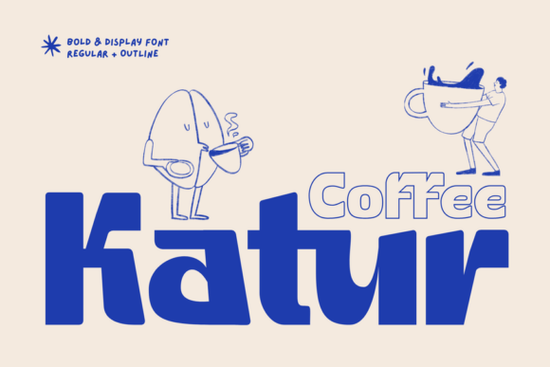
If you run a coffee shop, design food packaging, or create urban-inspired branding, finding the right typeface can make all the difference. That’s where Katur Coffee Font comes in a bold display sans-serif built with both energy and elegance in mind. Its clean geometric shapes and optional outline style give your projects a modern edge without sacrificing readability.
What sets Katur Coffee apart is how it handles letter connections. Thanks to its built-in ligatures, words flow together smoothly, creating a sense of rhythm that feels intentional and stylish. Whether you’re designing a café menu, a bag of artisanal beans, or social media graphics for a pop-up coffee event, this font adds personality without overwhelming your message.
Why choose a specialty coffee font like Katur Coffee?
Generic fonts often fall short when you’re trying to convey warmth, energy, or local charm qualities that matter deeply in food and beverage branding. A purpose-built typeface like Katur Coffee communicates confidence and flavor in a single glance. It’s not just about looking cool; it’s about matching your visual identity to your brand’s voice.
For small business owners and print-on-demand sellers, using a distinctive font reduces the risk of blending in with competitors. And for crafters or hobbyists making custom mugs, tote bags, or stickers, Katur Coffee offers an easy way to add professional polish without needing advanced design skills.
How does Katur Coffee compare to other modern sans-serifs?
Each of these brings something different to the table, but Katur Coffee stands out for its coffee-specific flair and seamless ligature system.
Where can you use Katur Coffee effectively?
This font shines in applications where boldness and clarity are key:
- Logo design – especially for cafés, roasteries, or cold brew brands.
- Menu boards – readable from a distance yet full of personality.
- Product labels – from coffee bags to syrups and baked goods.
- Social media posts – headlines and quotes pop with its confident weight.
- Merchandise – think T-shirts, mugs, and aprons for baristas or coffee lovers.
Because it includes an outline version, you also get creative flexibility use solid fills for minimalism or outlined letters for layered, dimensional effects.
Is Katur Coffee easy to use for non-designers?
If you're new to typography, don’t worry: the font’s strong structure makes it forgiving. Even at smaller sizes or in busy layouts, it holds up well thanks to its generous spacing and clear forms.
Before committing, ask yourself: Does my brand need something warm and energetic or ultra-minimal and neutral? If it’s the former, Katur Coffee is likely a strong fit. Pair it with neutral backgrounds and earthy tones (think terracotta, oat milk beige, or espresso brown) to let the font do the talking.
With its mix of bold geometry and thoughtful details, Katur Coffee isn’t just another display font it’s a tool that helps your brand speak clearly, confidently, and with a little caffeine-fueled charm.